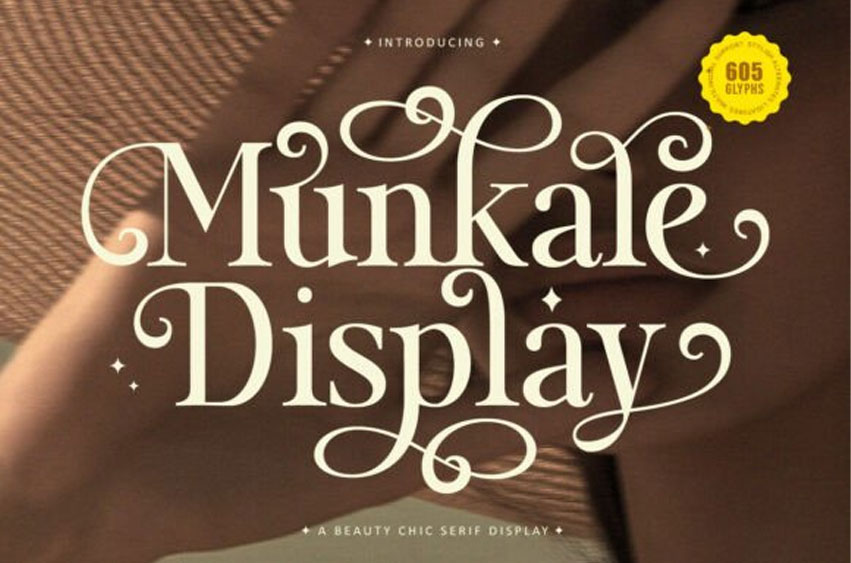
Munkale Display Font
Munkale Display Font is a stylish serif font, described by an elegant touch, perfect for your favorite projects. Fall in love with its incredibly distinct and timeless style and use it to create spectacular designs!